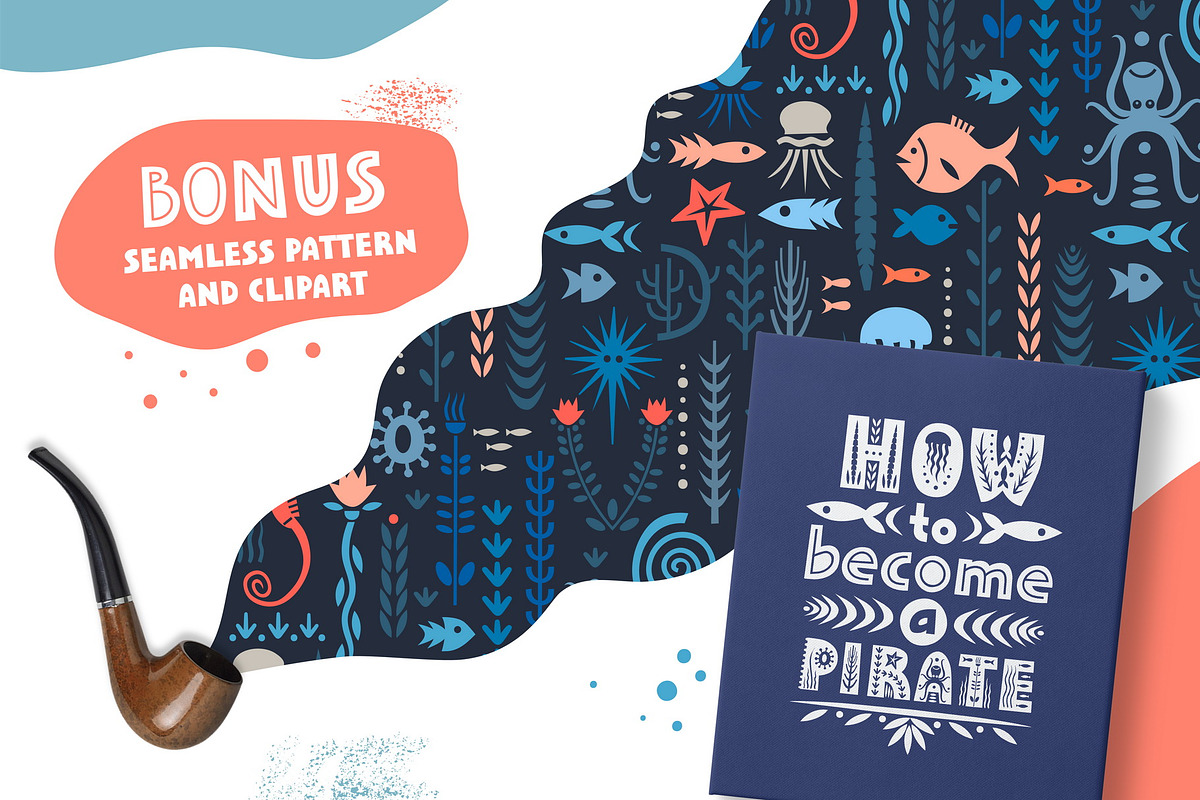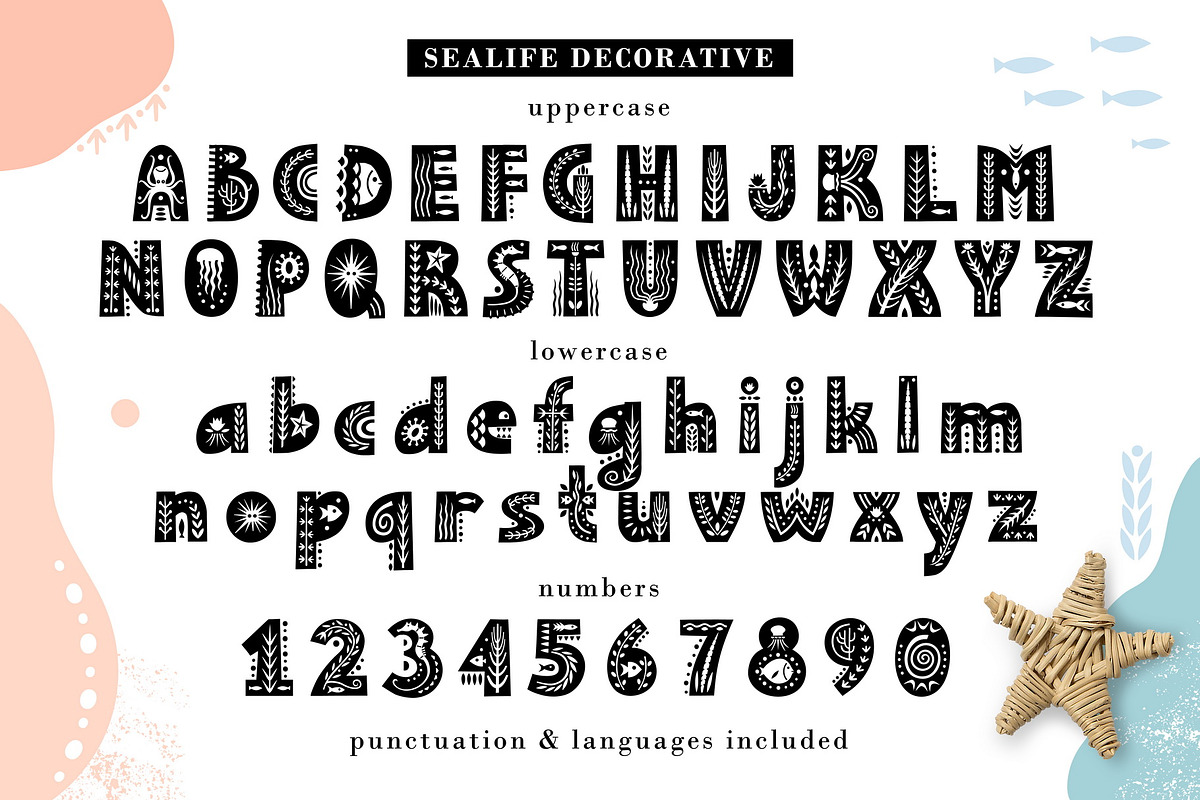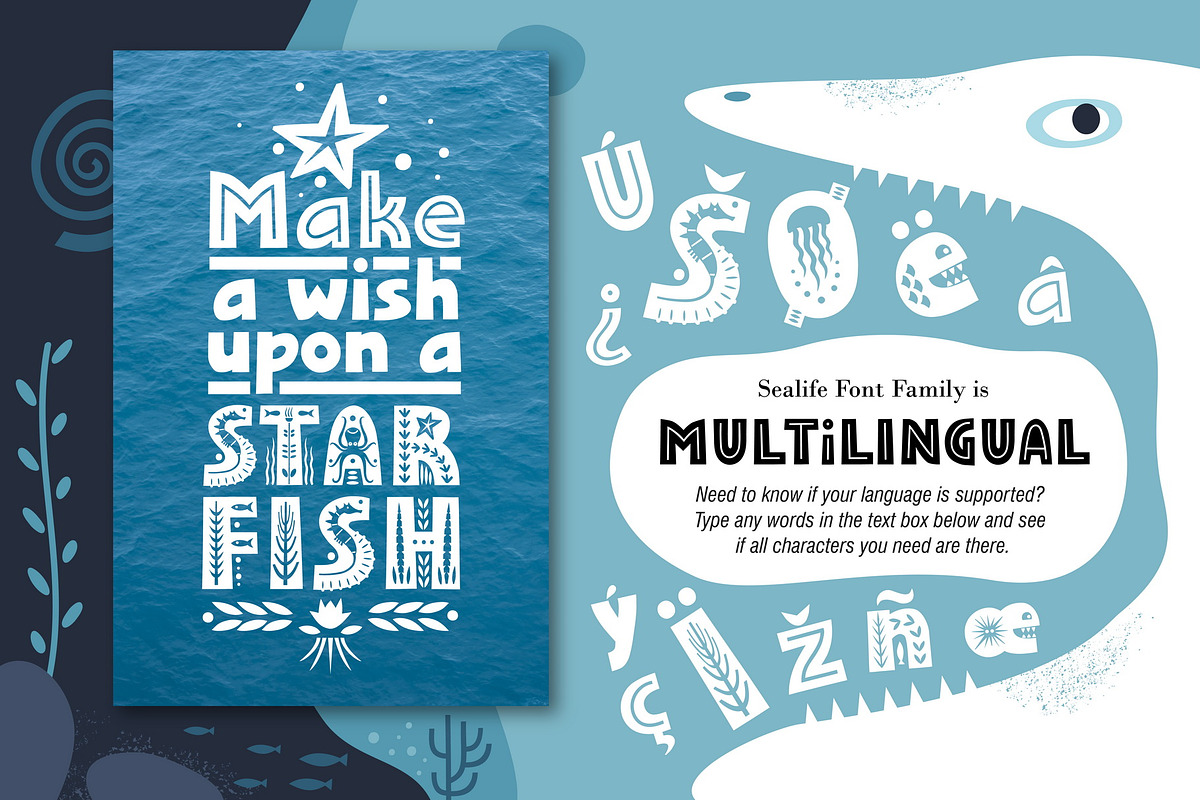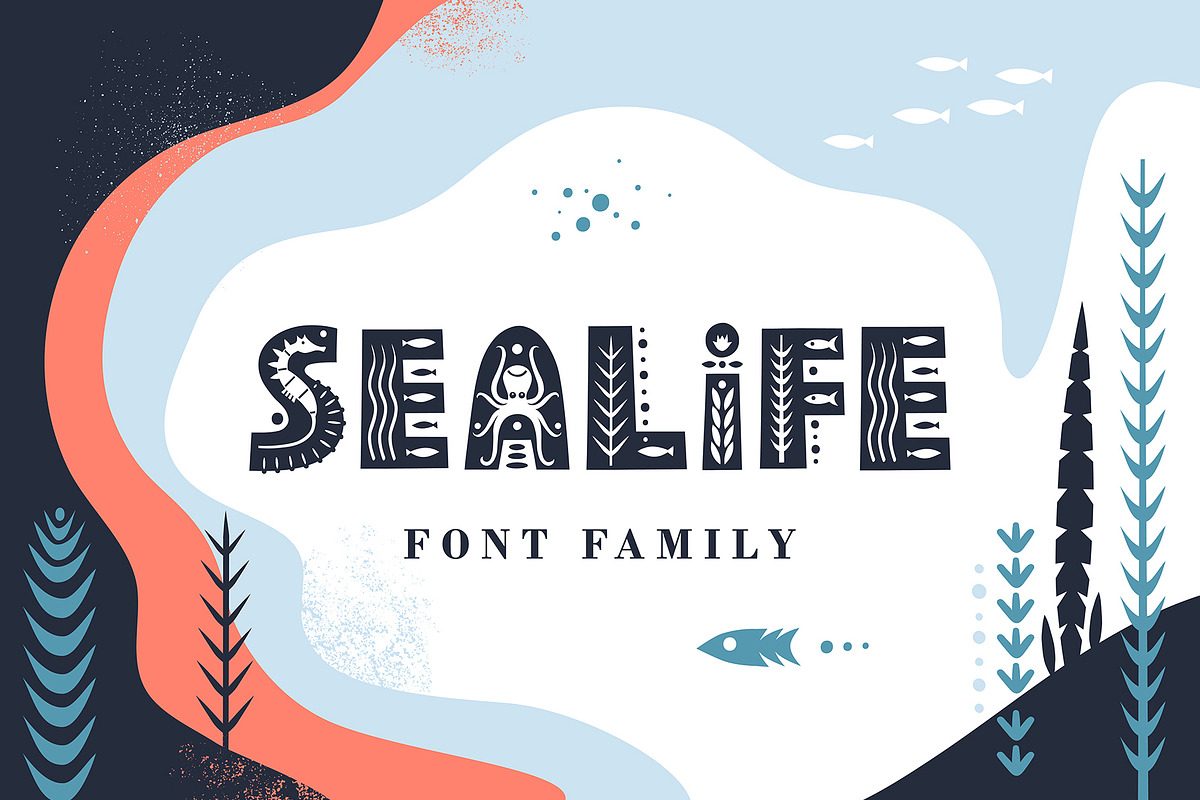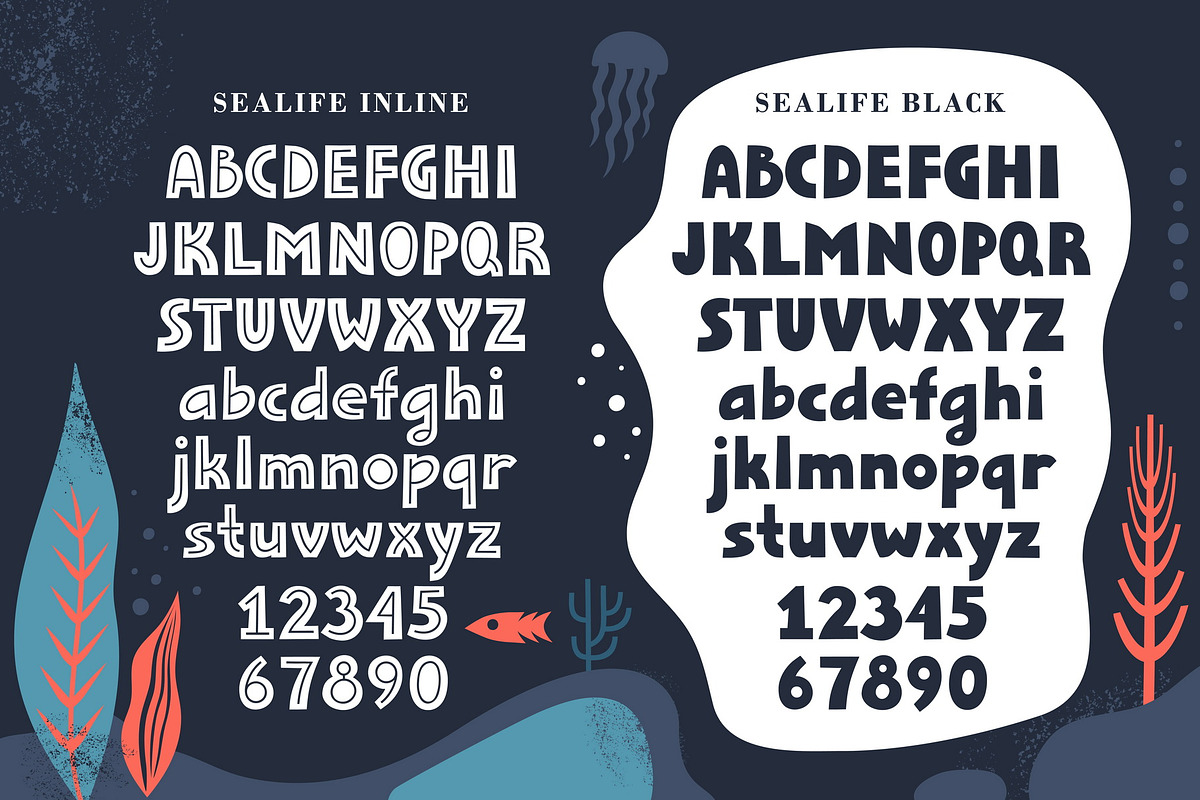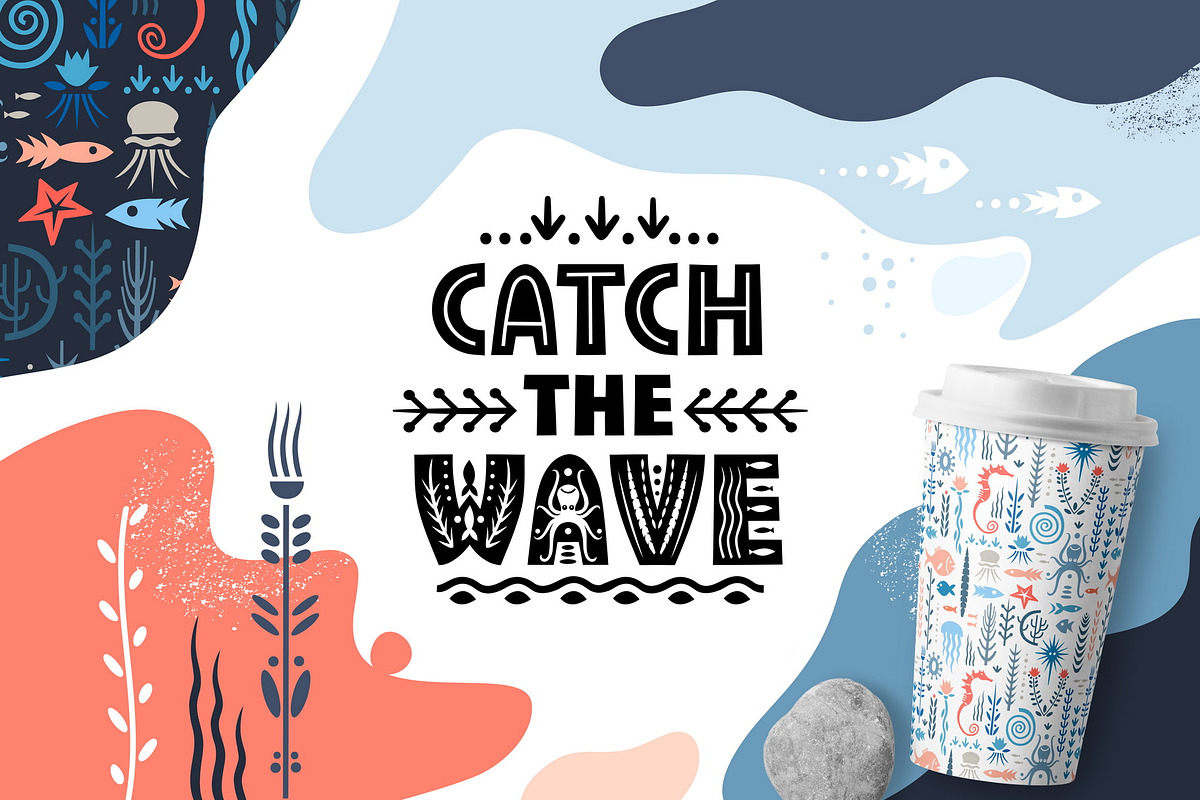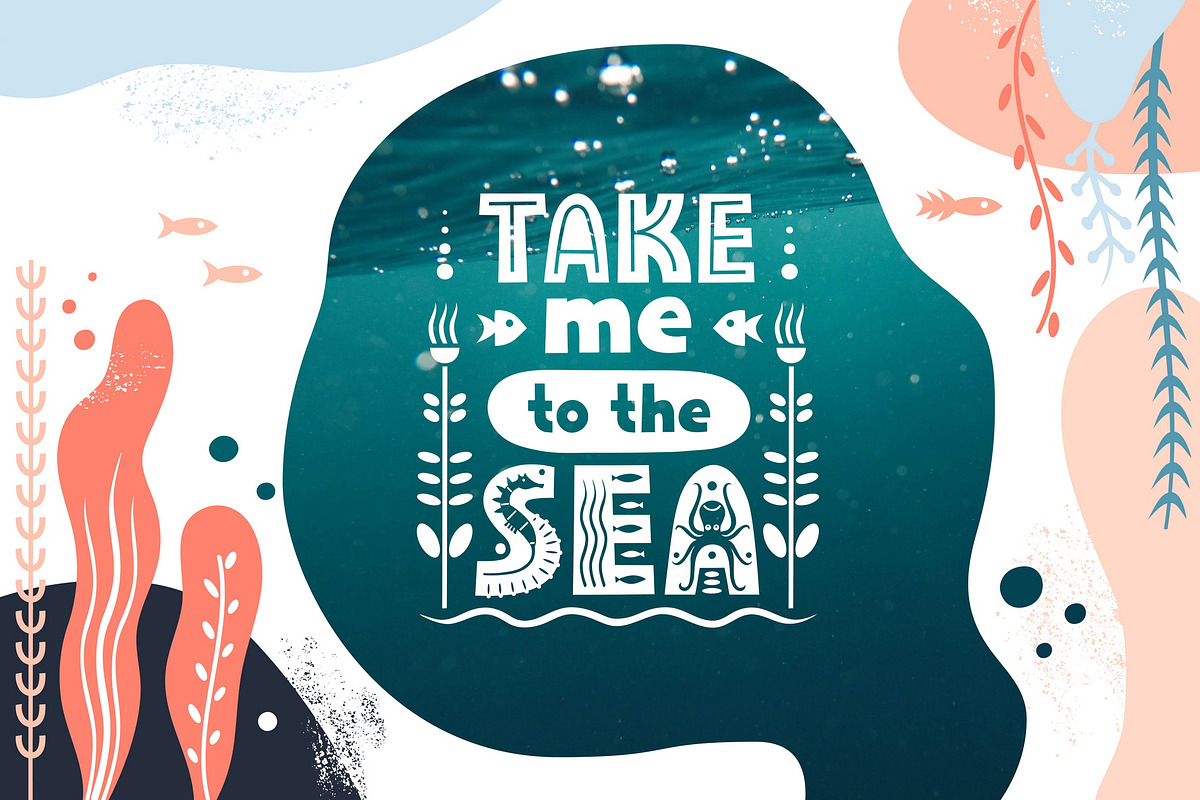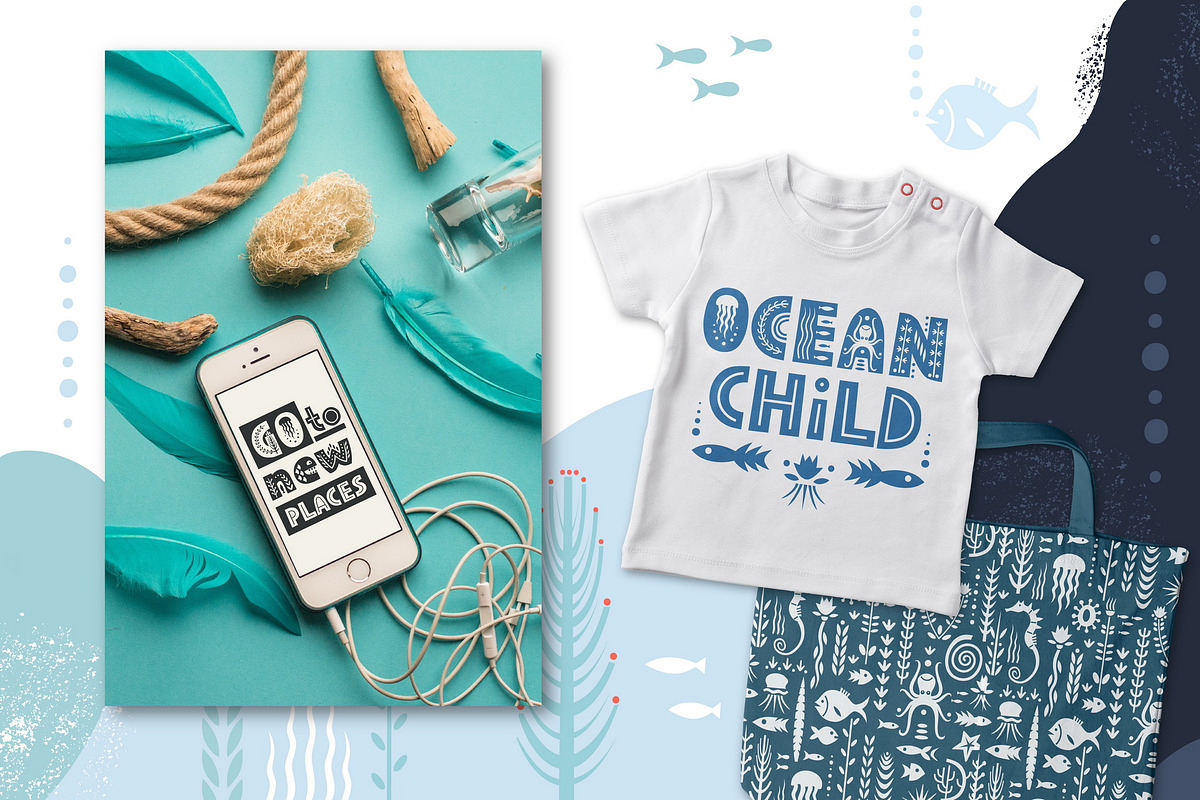
Sealife Font Family
I would like to introduce my new product - Sealife Font Family. Sealife is a display font decorated with oceanic patterns. The typeface includes Decorative, Black and Inline versions. The font is easy to use in various design programs or without any program. Also the product includes a small clipart with stylized sea plants and animals and seamless pattern. You can combine letters with clipart and pattern and get your unique design!
Sealife font is suitable for cool lettering posters and cards, tourist brochures, photo overlays and products branding and packaging. The font works great both for printing clothes (e.g. nursery) and interior decoration. Also use individual letters to create logos and monograms.
The font has extensive language support, it includes English, French, German, Italian, Spanish, Portuguese, Danish, Norwegian, Swedish, Finnish, Estonian. Need to know if your language is supported? Type any words in the text box below and see if all characters you need are there.